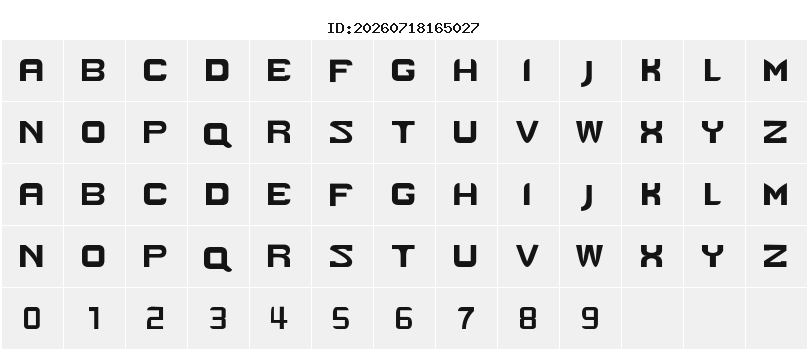
Cyberpunk Is Not Dead Preview
• Font Name: Cyberpunk Is Not Dead
• Designer: Aurelius
About Cyberpunk Is Not Dead.otf
Cyberpunk Is Not Dead.otf is a modern, elegant sans-serif font designed for ultimate readability and visual harmony. Perfect for branding, headlines, web design, and print materials.